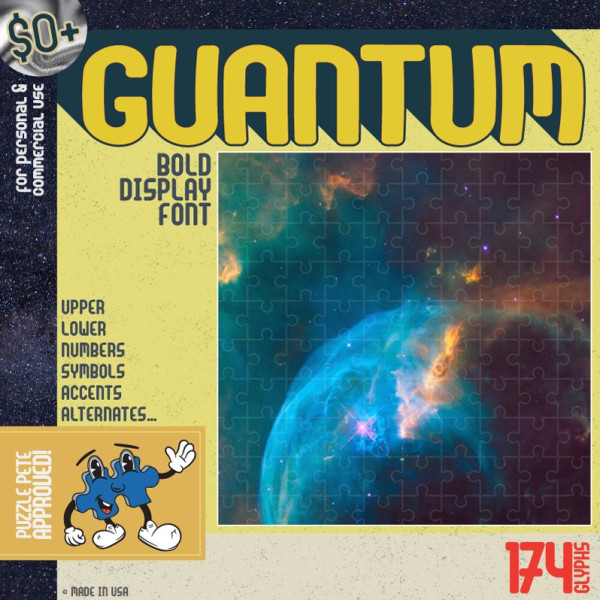
Guantum Font, Bold, compressed, rounded geo-sans. 174 total glyphs including alternates, numerals, latin accents and commonly-used symbols. Everything you’ll need.
| Classification: | Display Fonts, Sans Serif Fonts |